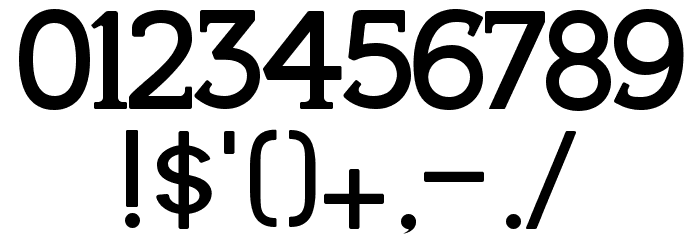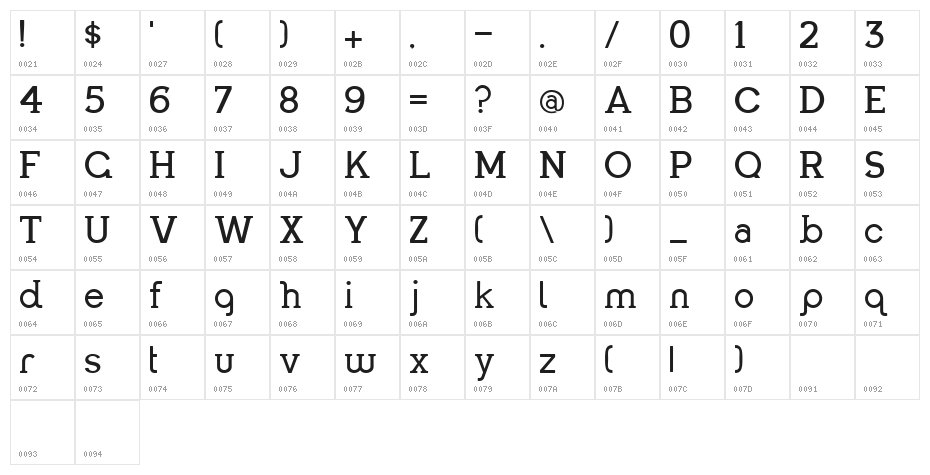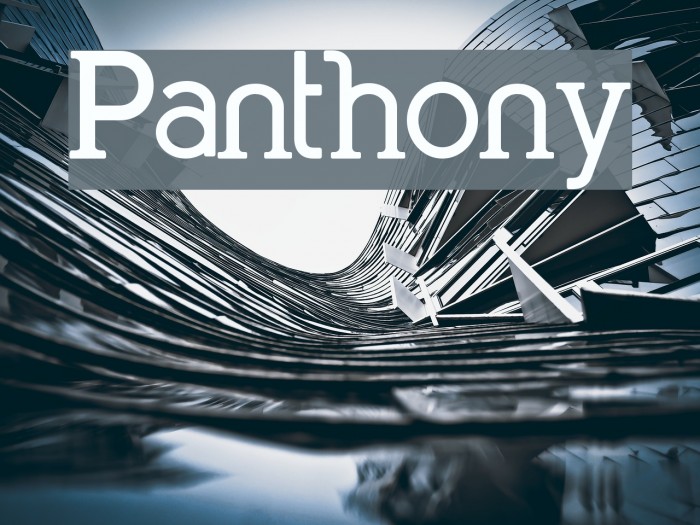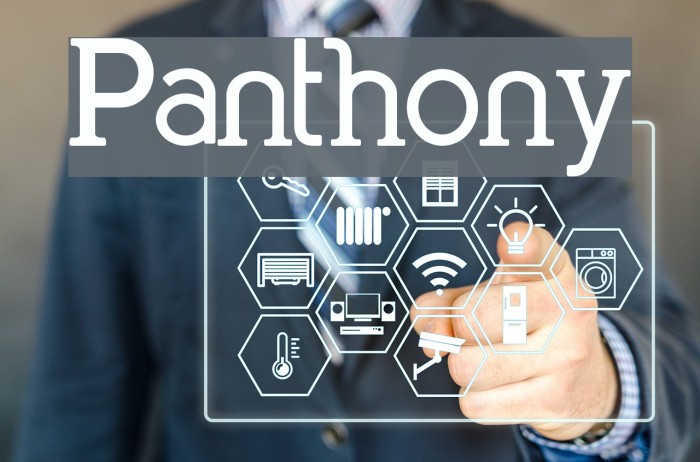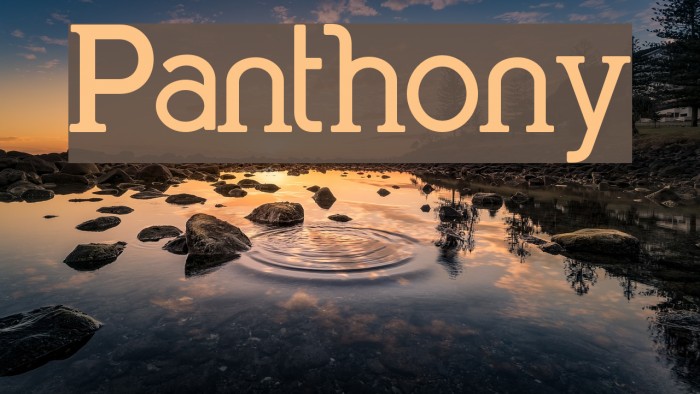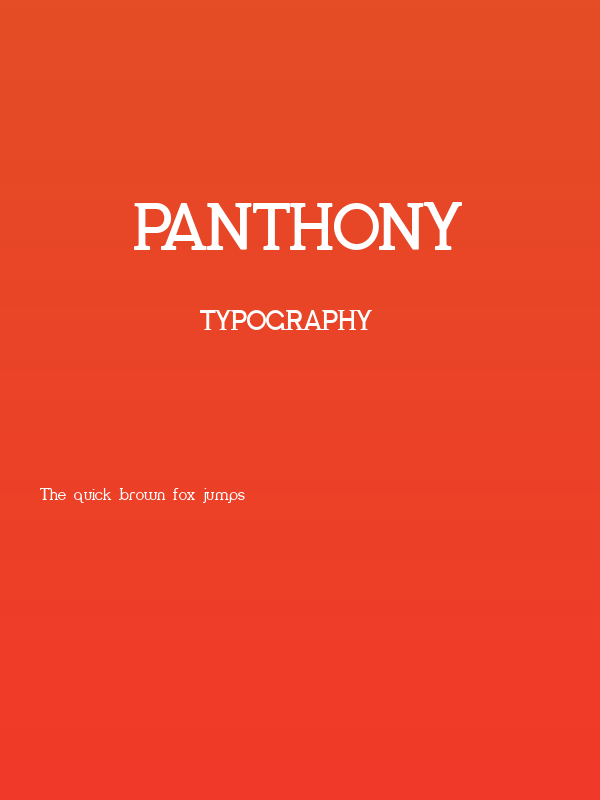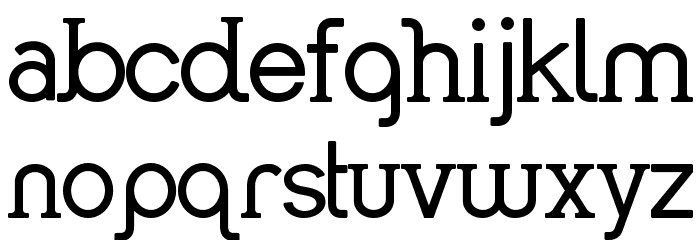
Panthony Font
Panthony Description
This font features a clean and modern design with a geometric structure. The characters are well-balanced, with a consistent stroke width that gives it a uniform appearance. The uppercase letters are bold and commanding, while the lowercase letters maintain a friendly and approachable feel. The numerals are clear and easy to read, making them suitable for various applications. The special characters are distinct and well-integrated into the overall design, ensuring versatility in usage. This font's simplicity and clarity make it ideal for both digital and print media.
Use CaseHeadlines, Body text, Logos
Proposed ProjectsIdeal for branding, advertising, web design, and editorial projects.